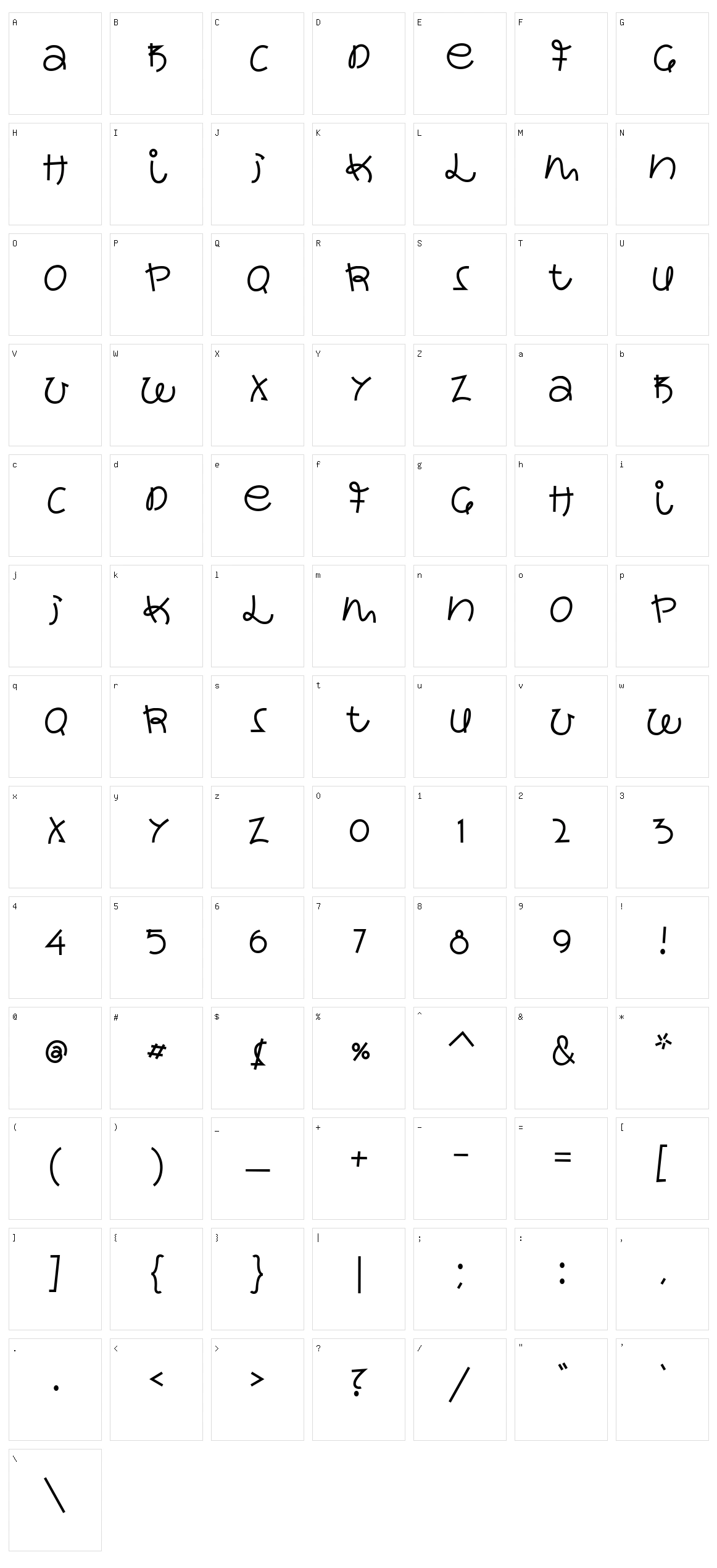
Wacky Sushi
Designed by: Roland Huse Design
Category: Asian
ÿþWACKY SUSHI is a Hiragana based font, I was trying to apply the strokes and the way of drawing Japanese Hiragana letters
to the basic latin which led to this "wacky" result.
The Hiragana characters look "normal" but you only can use it if you have MS IME input installed on your computer for Japanese characters input.
(And some basic knowledge of the Japanese language).